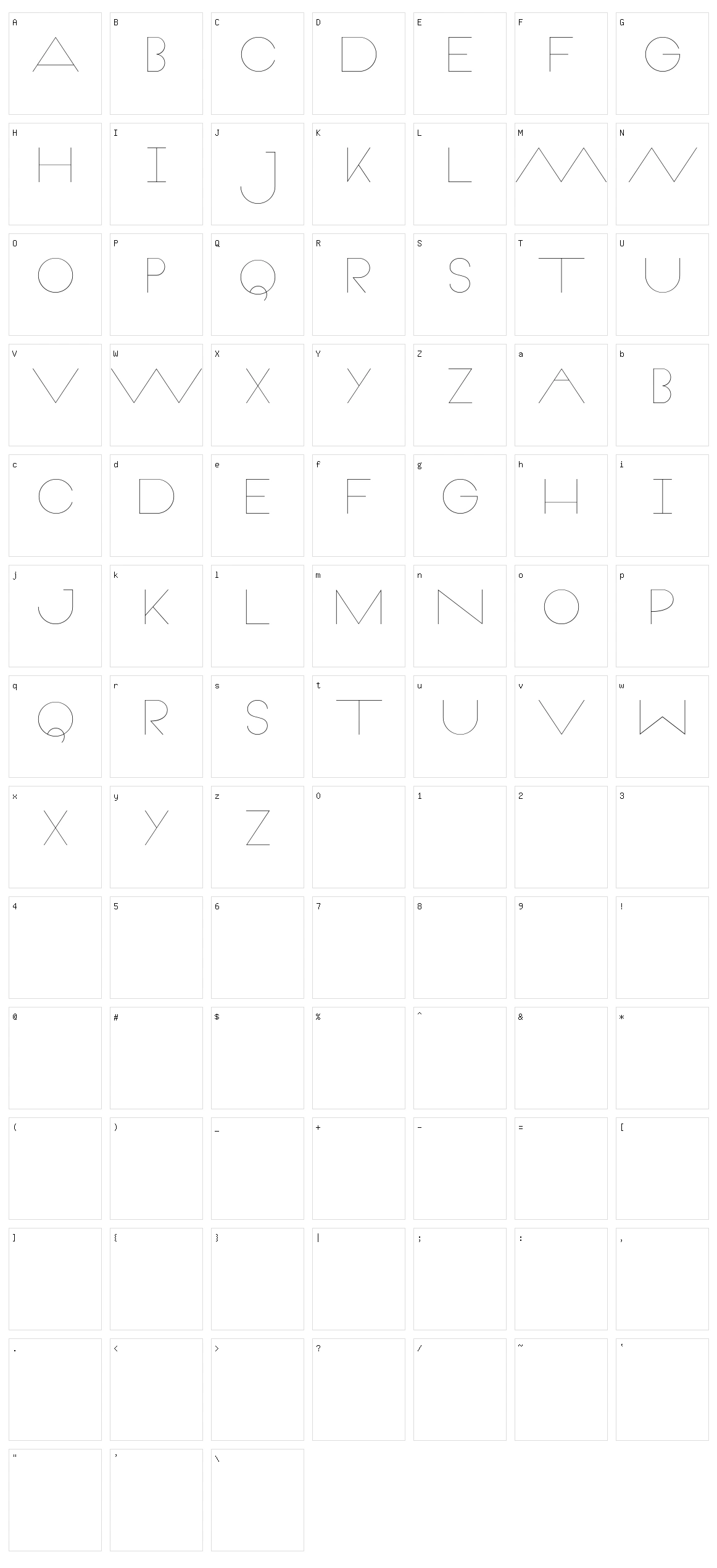
The font Veron has three heights: Normal, Bold and Bold Extra: a decorative alternate.
The Veron font is perfect to write titles, names and make posters. The Normal and Bold heights have some alternate characters in the lowercase. The three fonts are kerned. This is the second and last update of the Veron font, I adjusted all glyphs metrics and heights because they were looking weird in some designs.